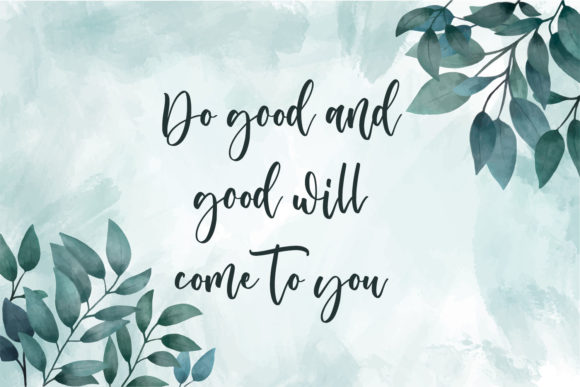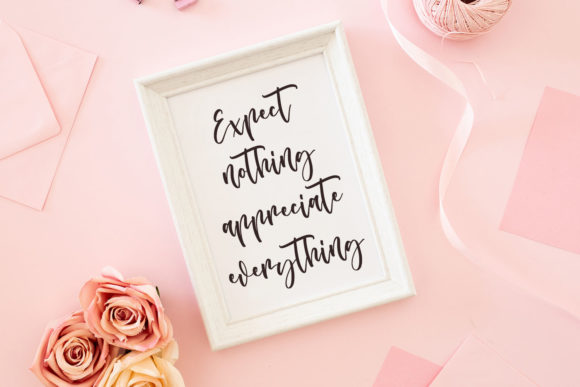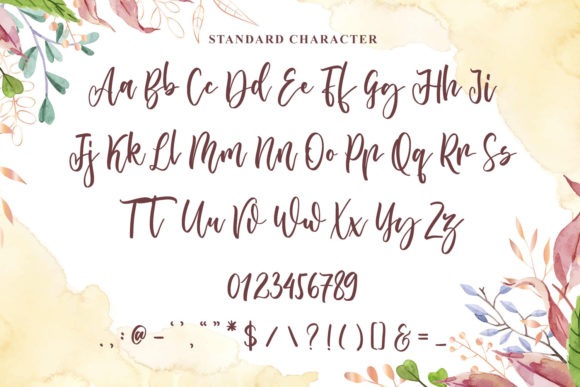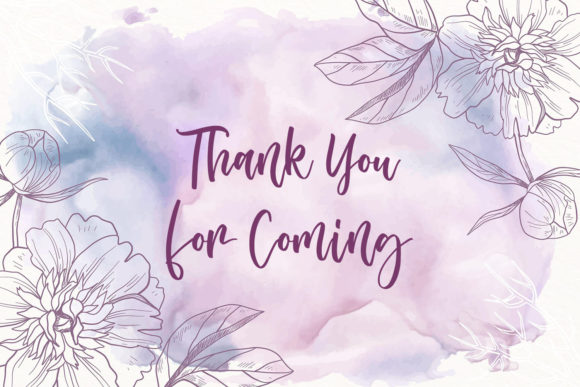
Introduction to Mikayla Hansamu Font
Mikayla Hansamu is a sweet and beautiful script font.
Fall in love with its incredibly versatile style and use it to create gorgeous wedding invitations, beautiful stationary art, eye-catching social media posts, and much more .
Key Features of Mikayla Hansamu Font
Why Choose Mikayla Hansamu Font?
Mikayla Hansamu Font offers exceptional quality and versatility, making it a valuable addition to your design toolkit. Whether you’re creating for personal projects or commercial use, Mikayla Hansamu Font delivers professional results.